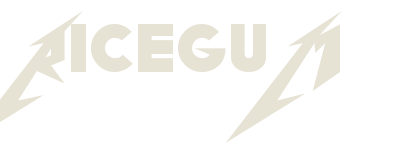
Metallica font generator free. It is a very clean transparent background image and its resolution is 595x262 , please mark the image source when quoting it. Click a style you want to copy, then paste the results with the help of fontsrack best free copy paste fonts. Download the free font replicating the logo from the music group metallica and many more at the original famous fonts!
The band currently includes the guitarist kirk hammett, the bassist robert trujillo, the drummer lars ulrich and james hetfeild, the rhythm guitarist and vocalist. Generate your own metallica logo : Abbreviations of color or diameter, or even icy chandeliers, all have a scary feeling, and for a scary theme, you can use the regular, psycho, creepy or spooky style of this death metal font.
Enter a word/sentence and it will shape it like the metallica logo. Use these free fonts to make designs for your favorite heavy metal bands, like metallica, iron maiden, black sabbath, and megadeth! Hey guys pls give metallica font name plssssss!!!!!!
Needleteeth font is designed by sinister fonts. Type your text into the fontsrack free text generator, where a red arrow pointing to the exact place for pasting the text. Metallica font here refers to the font used in the logo of the american band called metallica.
Metallica font it’s far said that the unique metallica logo became designed via james hetfield. Metallica id known to be one of the big four heavy metal bands and that is because of the group’s fast tempo and musicianship. 20+ black metal logo font generator images.
Download the free font replicating the logo from the music group metallica and many more at the original famous fonts! The metallica logo, as seen on the cover artwork of their 1986 single master of puppets, is among the most impressive logos for. This american band was formed in la in 1981.
Label maker font generator about fonts pool text generator is an amazing tool, that help to generate images of your own choice fonts. Design your own heavy metal logo for free. James hetfield who is an american musician and songwriter formed this band with lars ulrich, who is known as the drummer of the band.
Metallica is a heavy metal band. You can see your text in different styles. Choose logo > edit text > customize > done!
You can download the images and share on your social media profiles. Metallica font metallica font generator words pinterest metallica font transparent png 939x296 free download on nicepng from www.nicepng.com blake edwards, a friend of kerry king, created the slayer logo in 1981. The metallica font was designed in such a way that the first and last letter of the word could be extended so that it could be a long tail.
November 13, 2021 by eduard hoffmann. Within the logo, the start and ending letter was designed with long and sharp points, whilst the center letters have been designed with a solid and block appearance. Every font is free to download!
Metallica font has a prominent and creative texture appearance. The band has sold over 100 million albums over the globe and has won grammy. And while you're at it, waste your time with this stranger things font generator and this drake album cover generator.
Generate your own metallica logo. Its resolution is 595x262 and with no background, which can be used in a variety of creative scenes. Aug 23, 2019 · metallica is a heavy metal band.
Metallica is an american heavy metal band started in 1981 in los angeles, california. This band has produced many albums and become famous all over the globe.